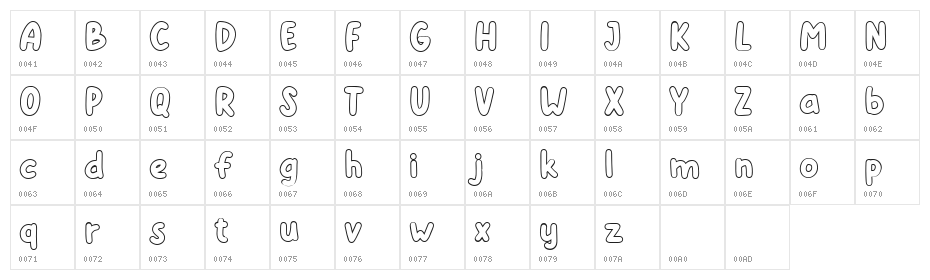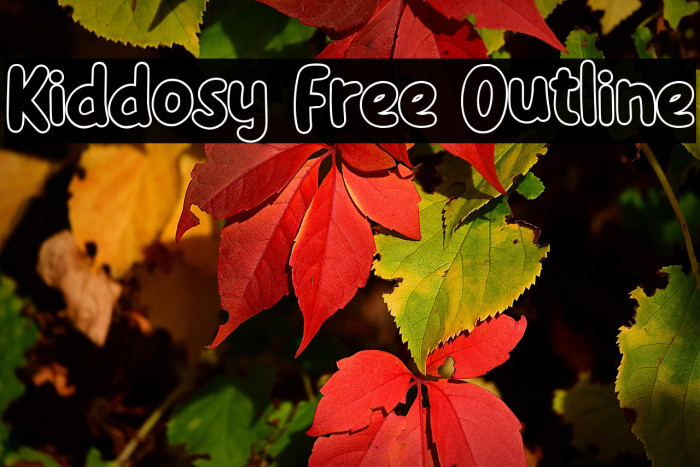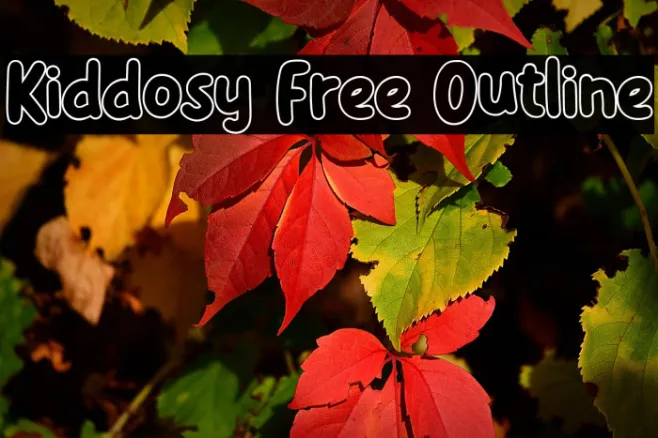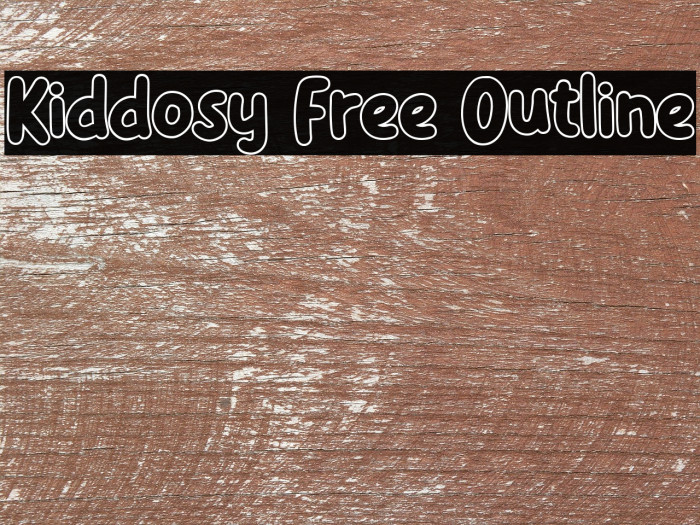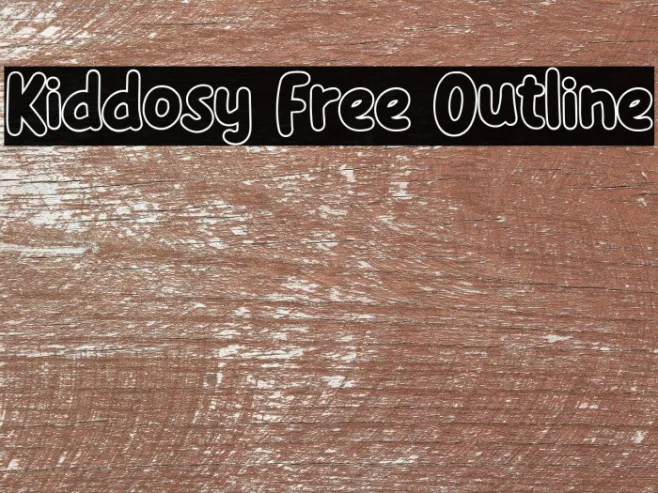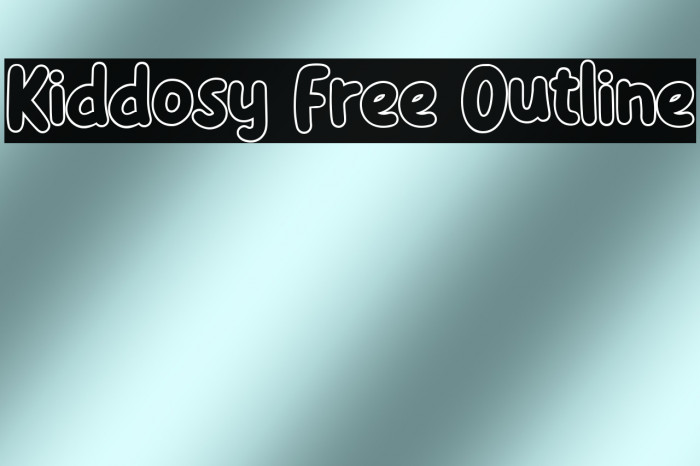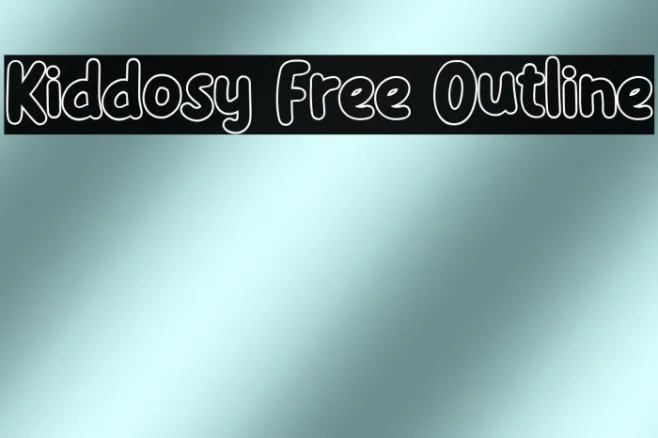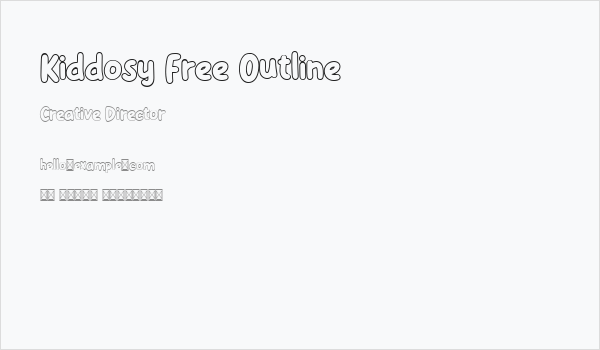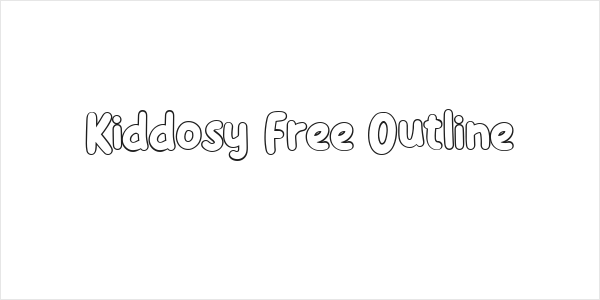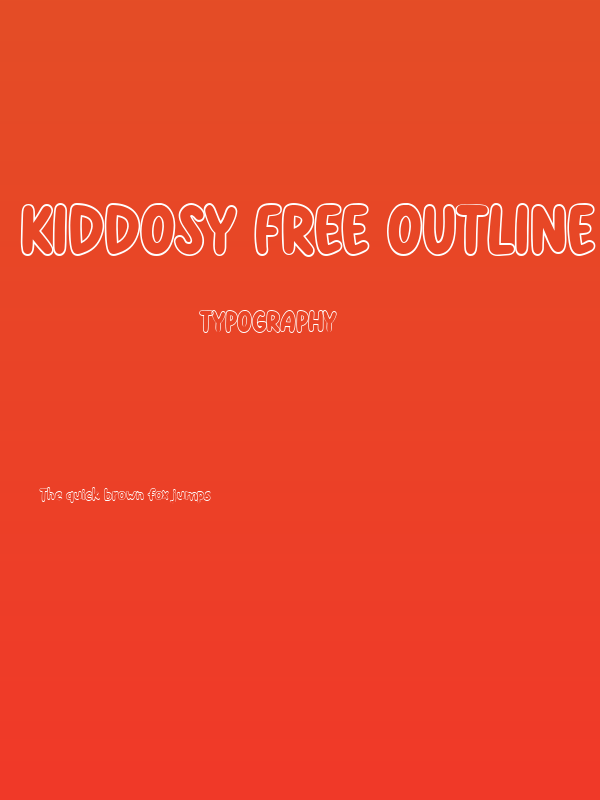
Kiddosy Free Outline Font
Kiddosy Free Outline Description
This playful and whimsical font features bold, rounded letters with a distinct outline style. The characters are evenly spaced, providing a clean and approachable look. The font's design is reminiscent of hand-drawn lettering, making it ideal for projects that require a fun and informal touch. The uppercase and lowercase letters maintain a consistent style, with smooth curves and a friendly appearance. This font is perfect for children's books, playful branding, and creative projects that aim to convey a sense of joy and lightheartedness.
| Proposed Projects | Ideal for children's books, playful branding, greeting cards, and creative projects. |